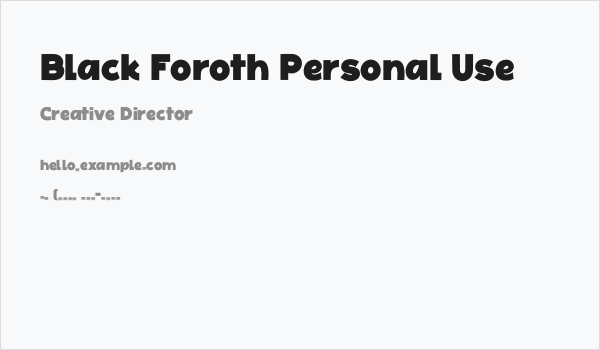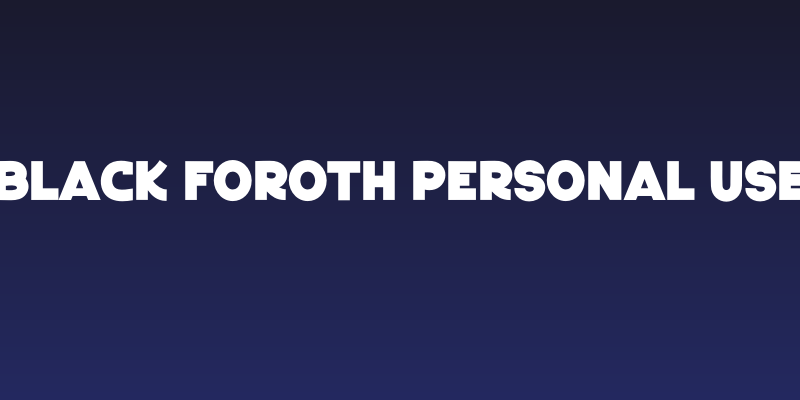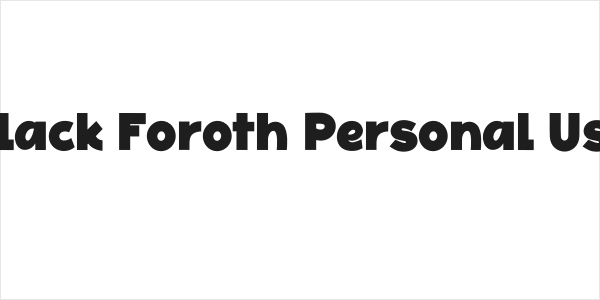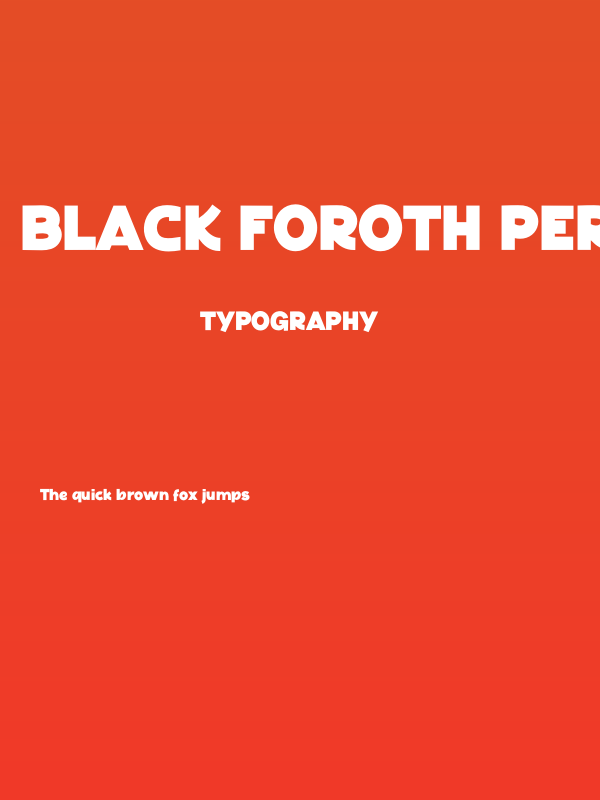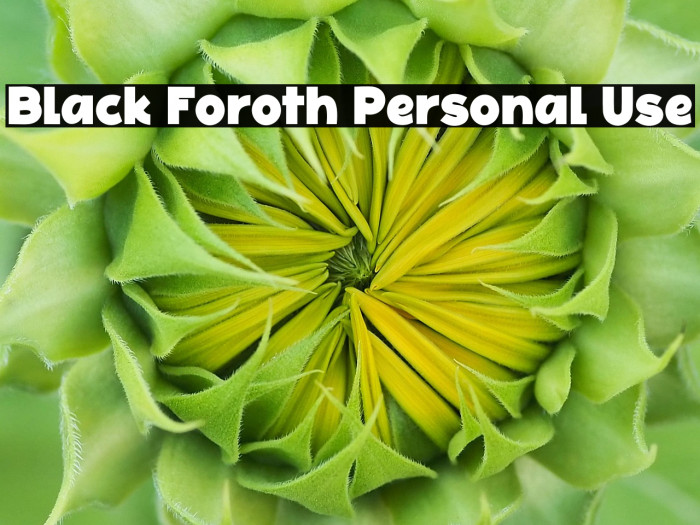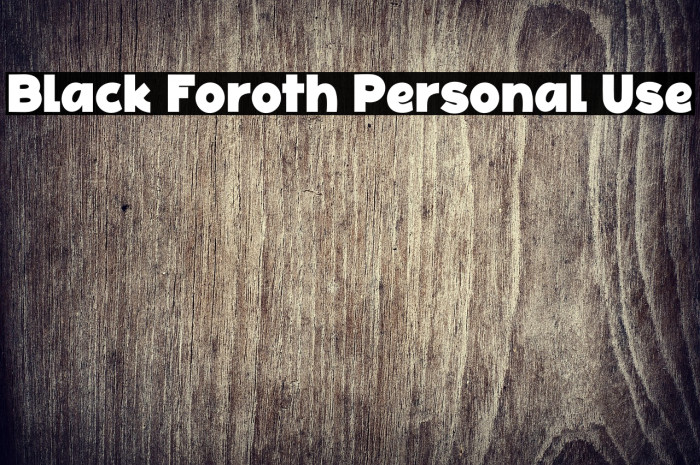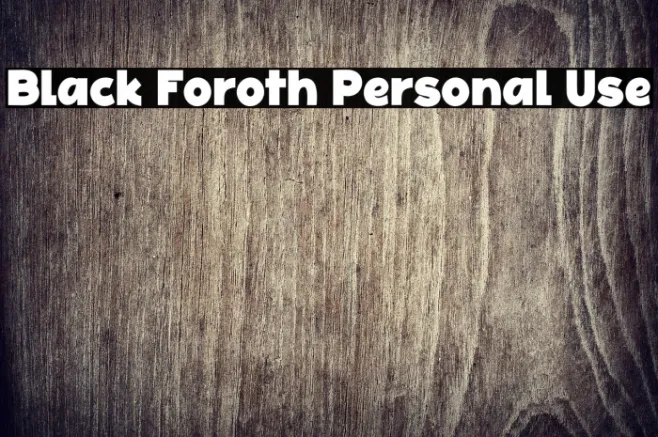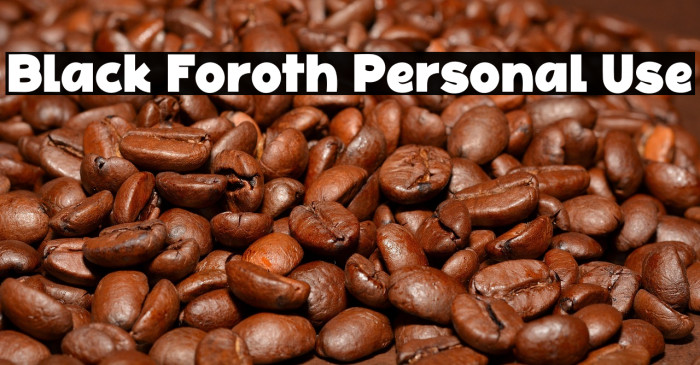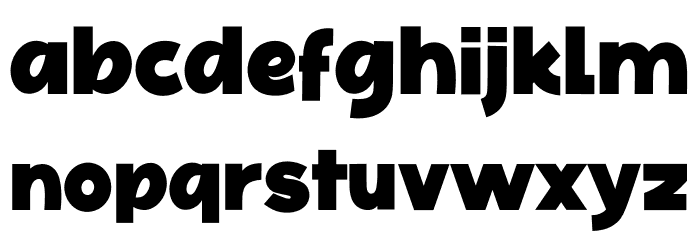
Black Foroth Personal Use Font
Black Foroth Personal Use Description
This font features bold, thick strokes with a strong presence, making it ideal for attention-grabbing headlines and titles. The uppercase letters are robust and commanding, while the lowercase letters maintain a consistent weight, providing a harmonious balance. The font's geometric shapes and clean lines give it a modern and impactful appearance. It is designed to stand out, with wide character spacing that enhances readability even at smaller sizes. The overall style is contemporary, with a slight nod to retro aesthetics, making it versatile for various design projects.